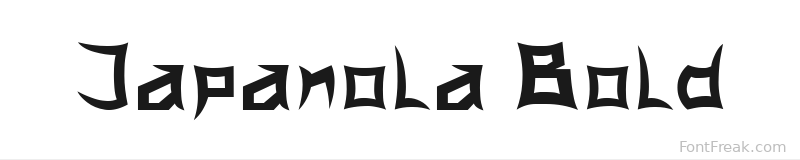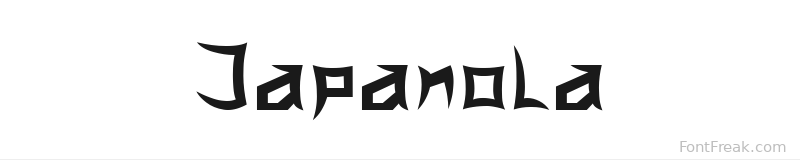
Japanola
Japanola Bold
About Japanola
Japanola by Kong Font is a striking display typeface that captures the essence of Japanese aesthetics with a modern twist. This font features a playful yet bold style, characterized by its dynamic stroke weight and fluid forms. The letters exhibit a unique balance of sharp edges and curves, creating an eye-catching contrast that draws attention. The spacing is thoughtfully designed, allowing for readability while maintaining a decorative flair. This makes Japanola an ideal choice for various creative projects.
The best use cases for Japanola include vibrant wedding invitations that celebrate a theme of elegance and fun, as well as eye-catching movie posters that require a distinctive title treatment. Its playful nature also makes it suitable for restaurant menus, where it can highlight specific dishes or evoke a sense of cultural fusion. Additionally, Japanola can enhance promotional materials for events, particularly those emphasizing Japanese culture or cuisine. The font appeals to graphic designers, small business owners, and content creators who seek to infuse their work with a unique and memorable visual identity.
What sets Japanola apart is its ability to blend traditional inspiration with contemporary design sensibilities. This font not only stands out for its aesthetic qualities but also for its versatility across various applications. By integrating Japanola into your design projects, you can create a captivating visual narrative that resonates with your audience. For those interested, the Japanola font free download offers an excellent opportunity to experiment with this distinctive typeface and elevate your creative endeavors. Embrace the charm and character of Japanola, and let it inspire your next project.
Author Kong Font